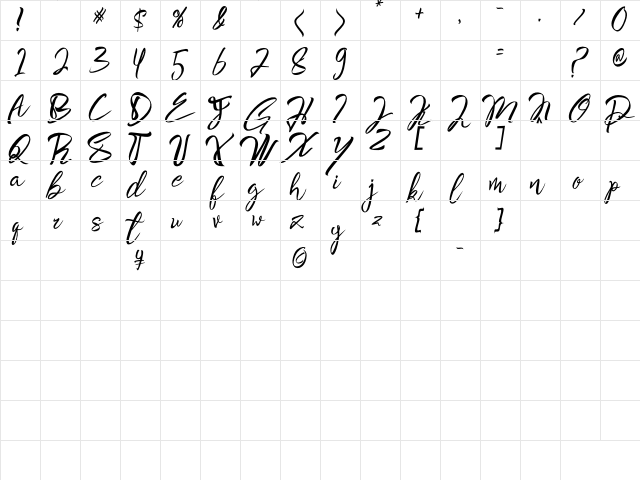
Hati Regular
| Designer | ABDUL GHOFUR |
Design Context for Hati Typeface
Hati is a composed and adaptable typeface that performs quietly and consistently across a wide range of design contexts.